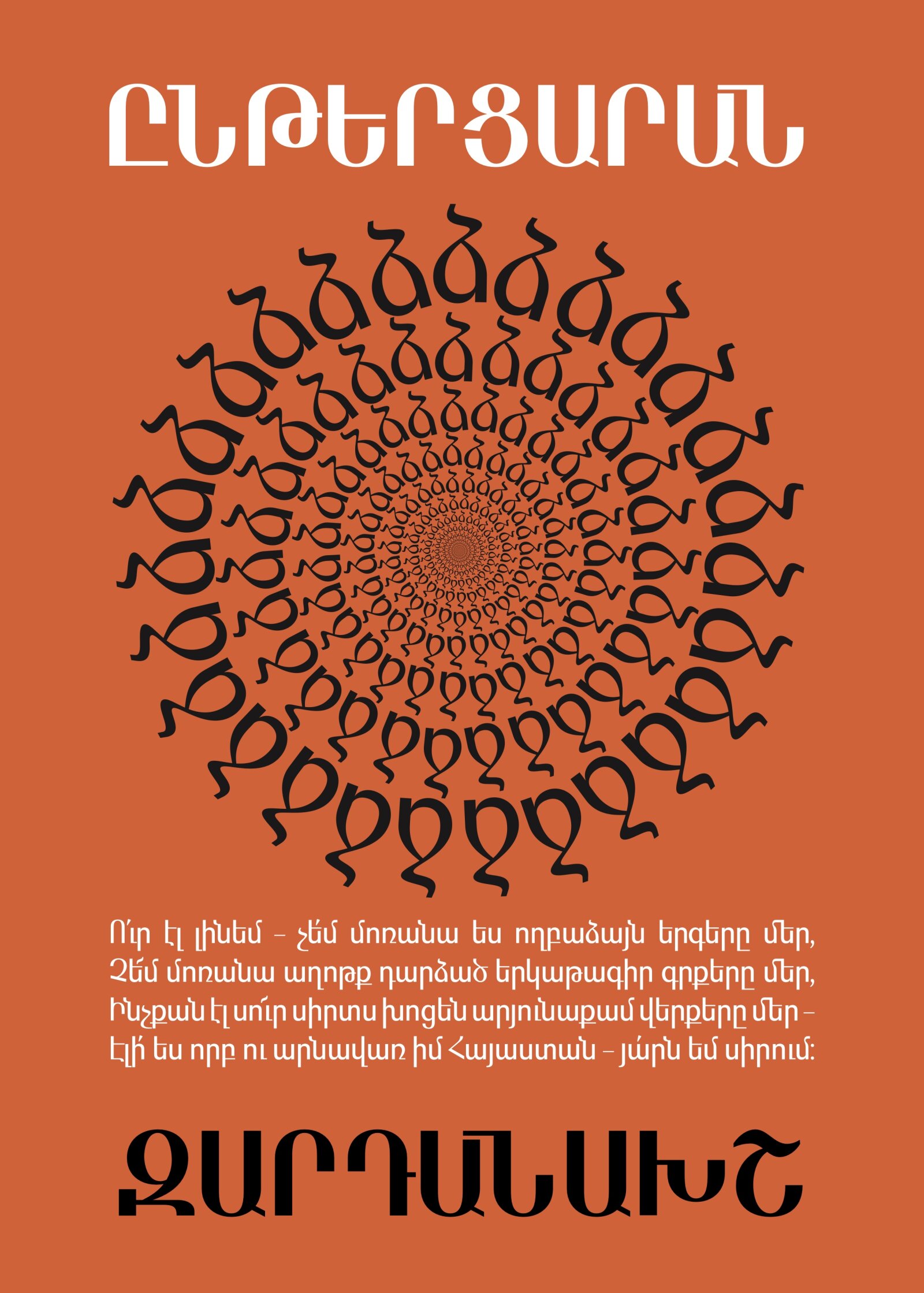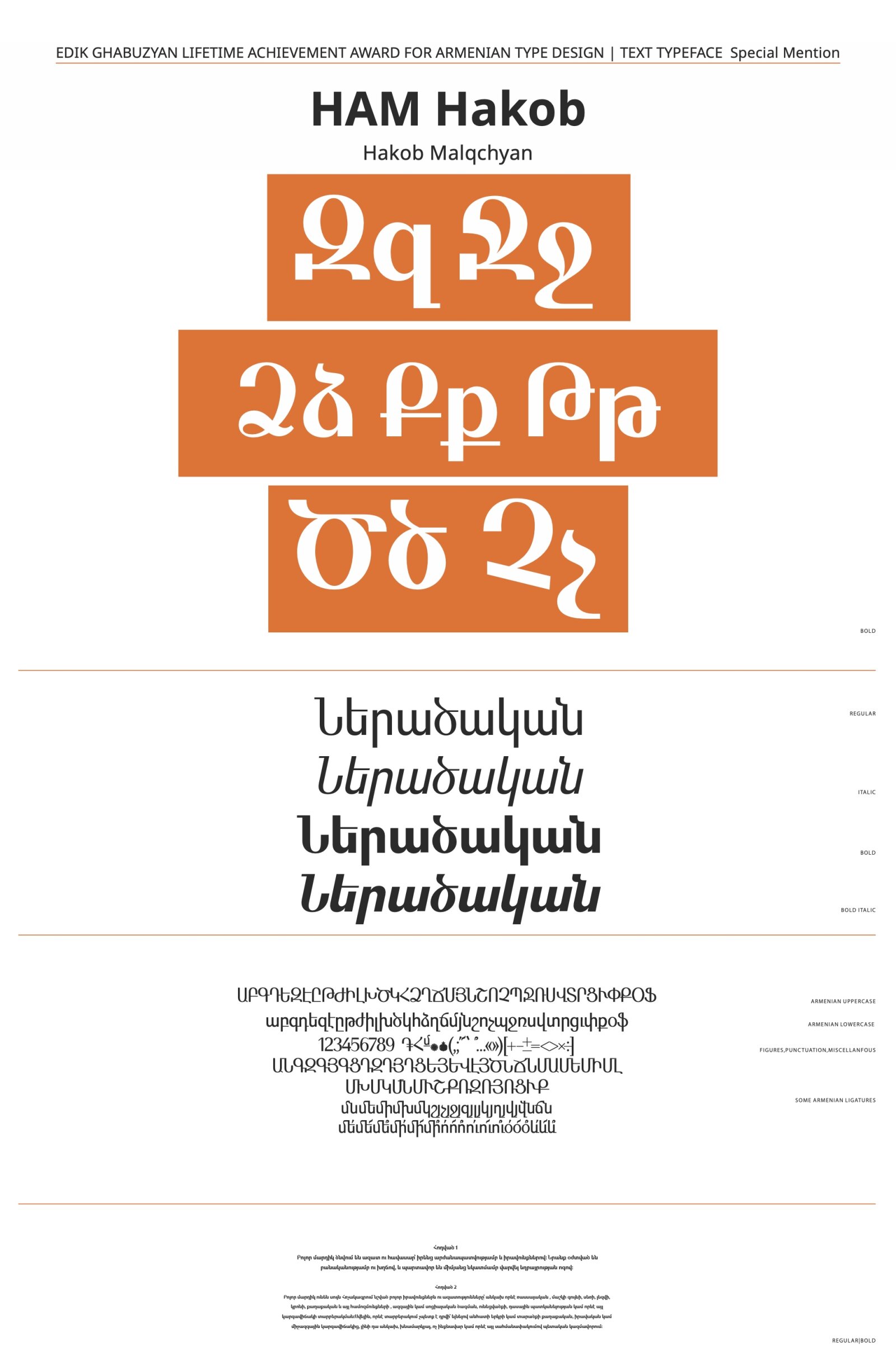
HAM Hakob
by Hakob Malqchyan
Armenian Special – Ghabuzyan Lifetime Award
Accurately designed text typeface with a number of ligatures and punctuation signs. Its proportions and letter shapes are based on traditional Armenian typefaces, still it’s not a historical reconstruction, but a functional modern typeface for use in print or on screen.
For typing and designing texts